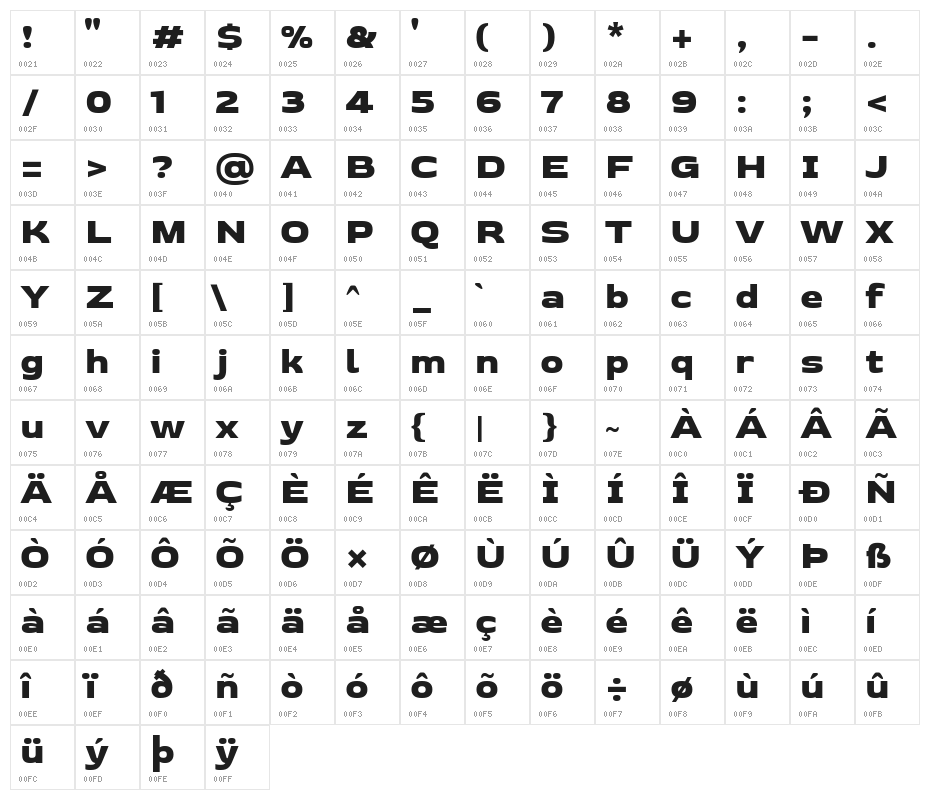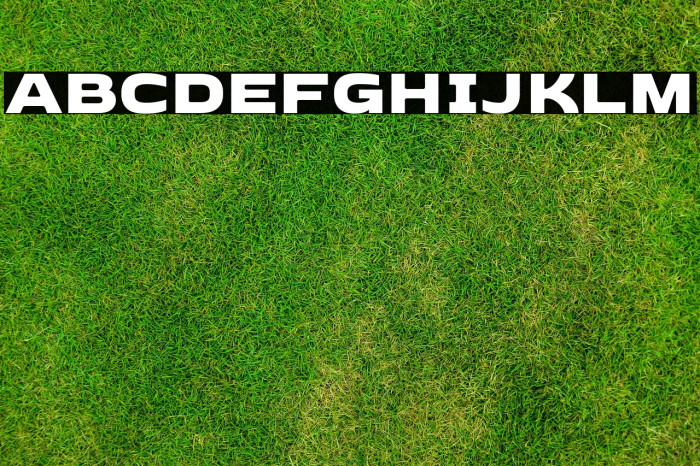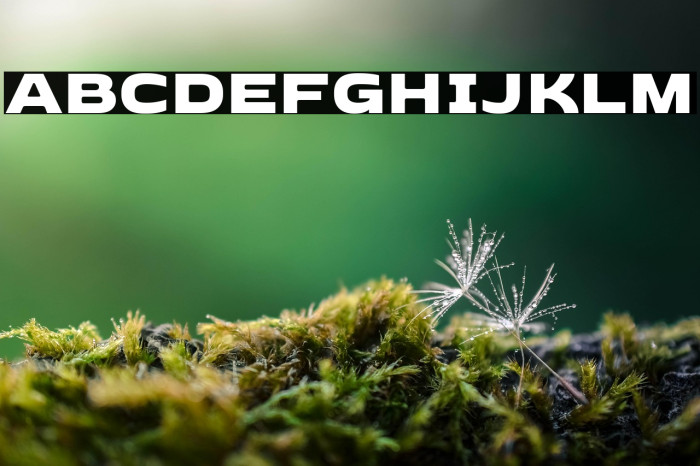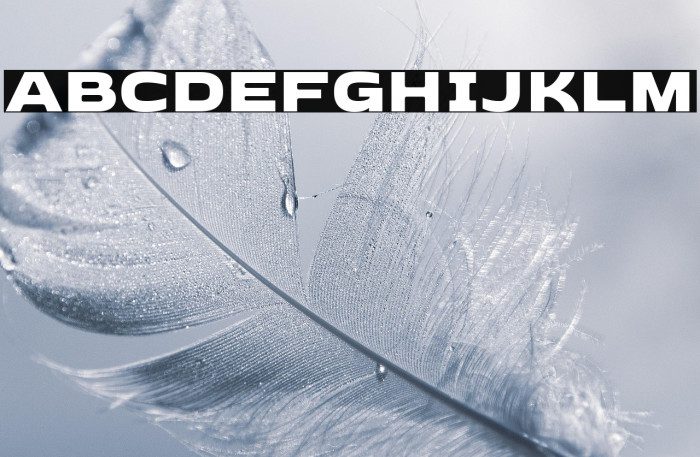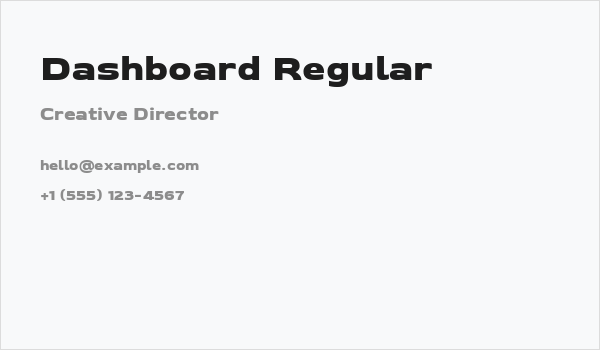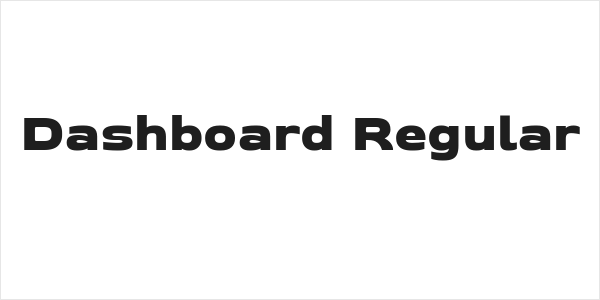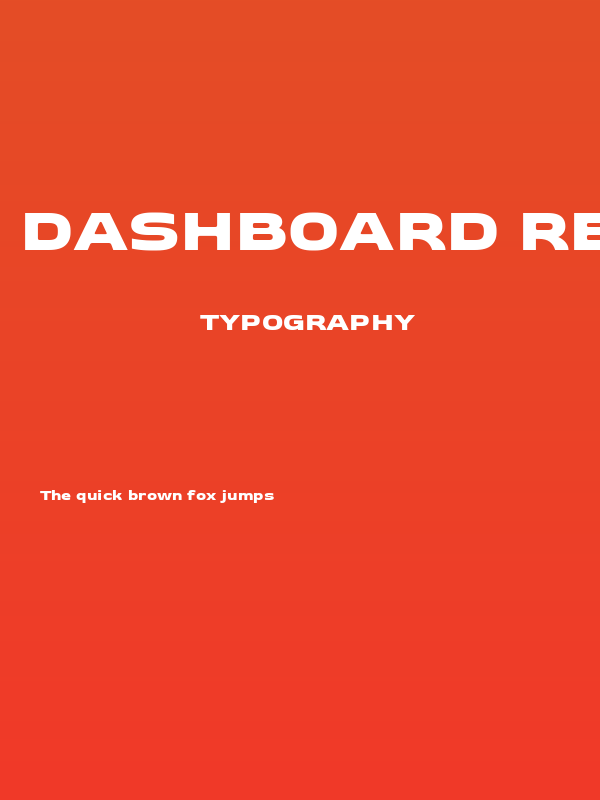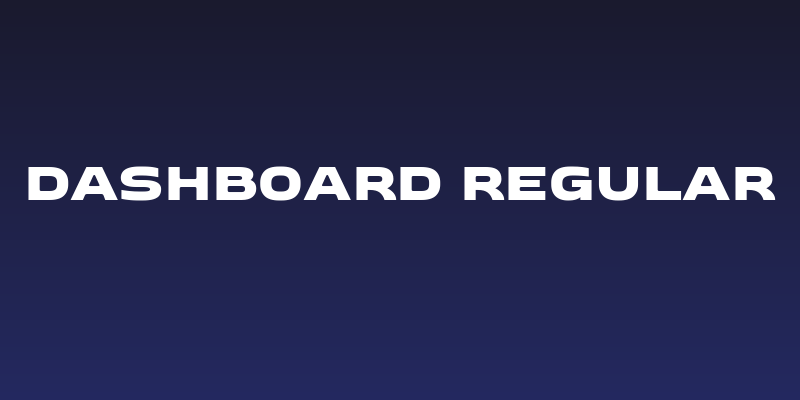
Dashboard Regular Font
Dashboard Regular Description
This font features a bold and modern sans-serif design with strong geometric shapes and clean lines. The uppercase letters are uniform in height, providing a balanced and structured appearance. The lowercase letters maintain a consistent style, with rounded edges that add a touch of softness to the overall boldness. The numerals are clear and easily distinguishable, making them suitable for various applications. Special characters are well-defined, ensuring readability and versatility. The font's bold weight and solid structure make it ideal for impactful designs.
Use CaseHeadlines, Logos, Branding
Proposed ProjectsIdeal for branding, headlines, posters, and digital interfaces where a strong visual impact is needed.